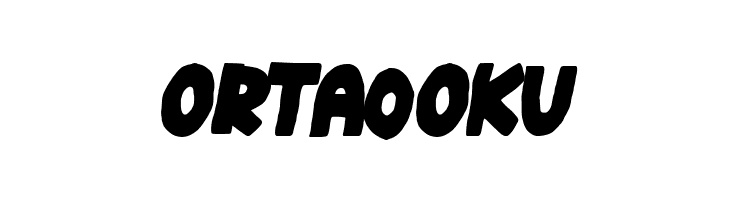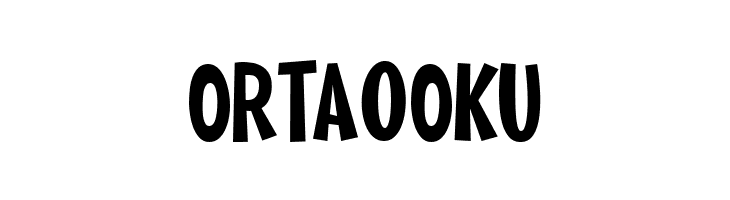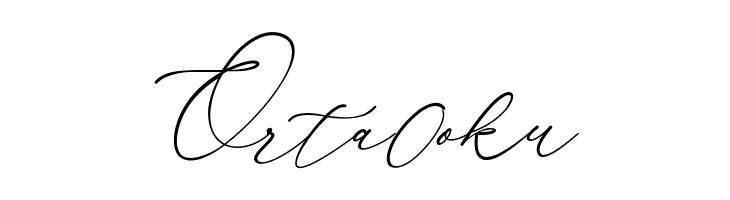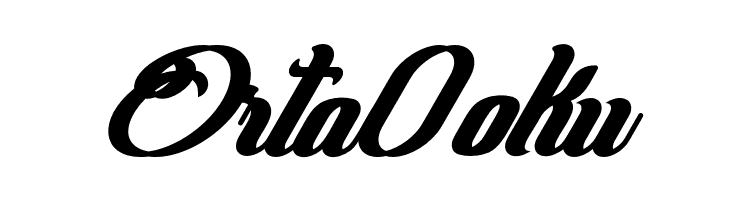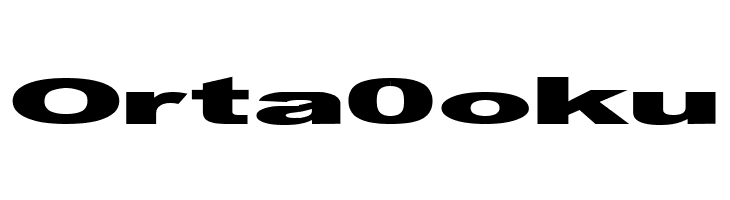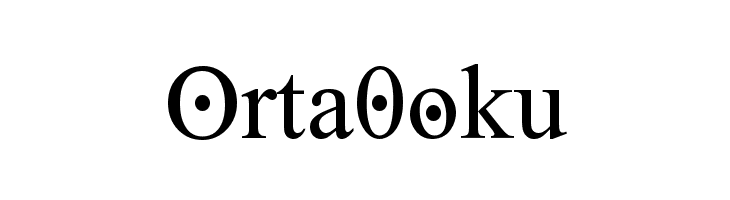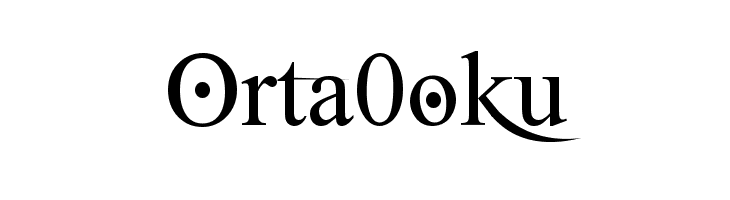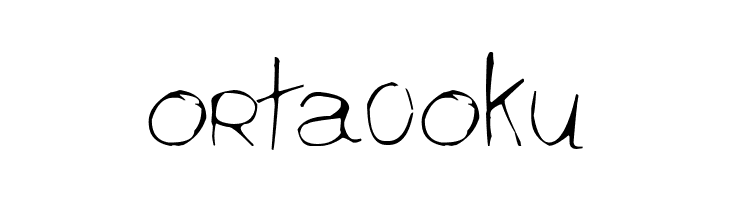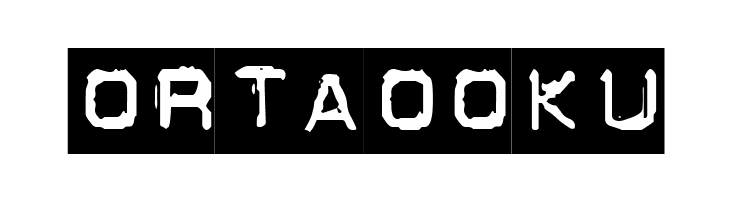
• GF Ordner Normal
• GF Vienna heavy
• GheaAdasta-Regular
A bold, expressive script font with elegant swashes and high contrast.
• Ghost Theory
• Ghost Theory 2
• Gilani Sign
A fluid, elegant handwritten font with smooth, connected strokes.
• Gilar Saleh
A sophisticated script font with fluid, interconnected strokes and elegant loops.
• Ginger Galaxy
A bold, rounded font with a playful and dynamic style.
• Ginger Soda
A bold, playful font with a hand-drawn, energetic style.
• ginolib*
A whimsical handwritten font with playful, irregular strokes and creative decorative elements.